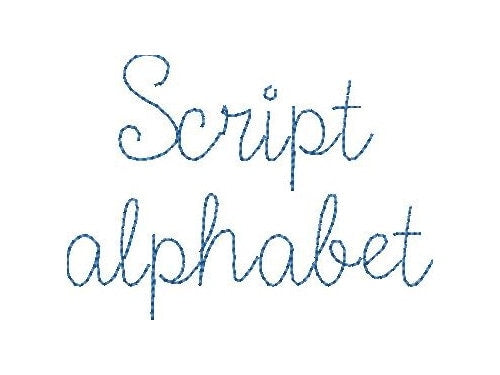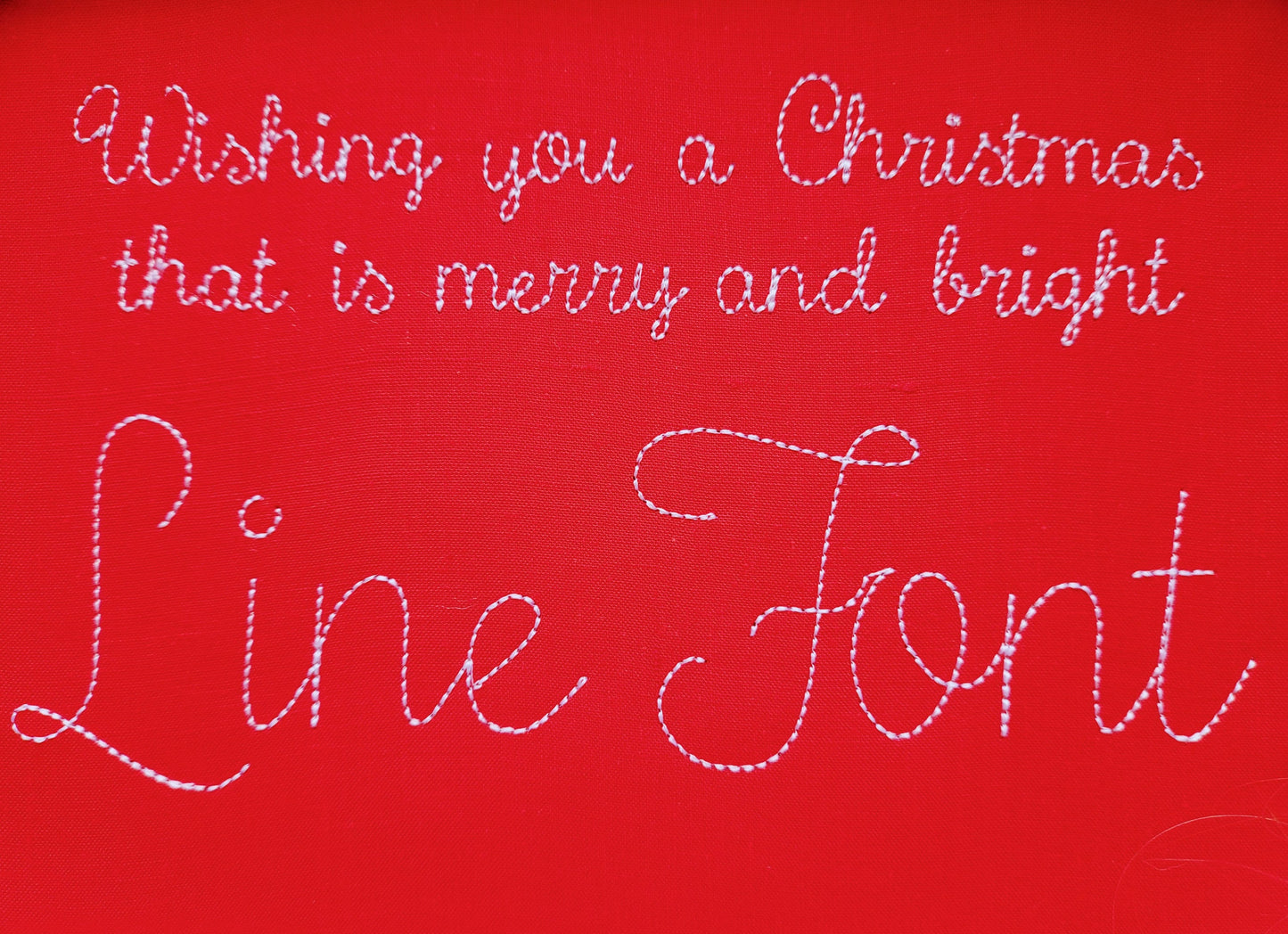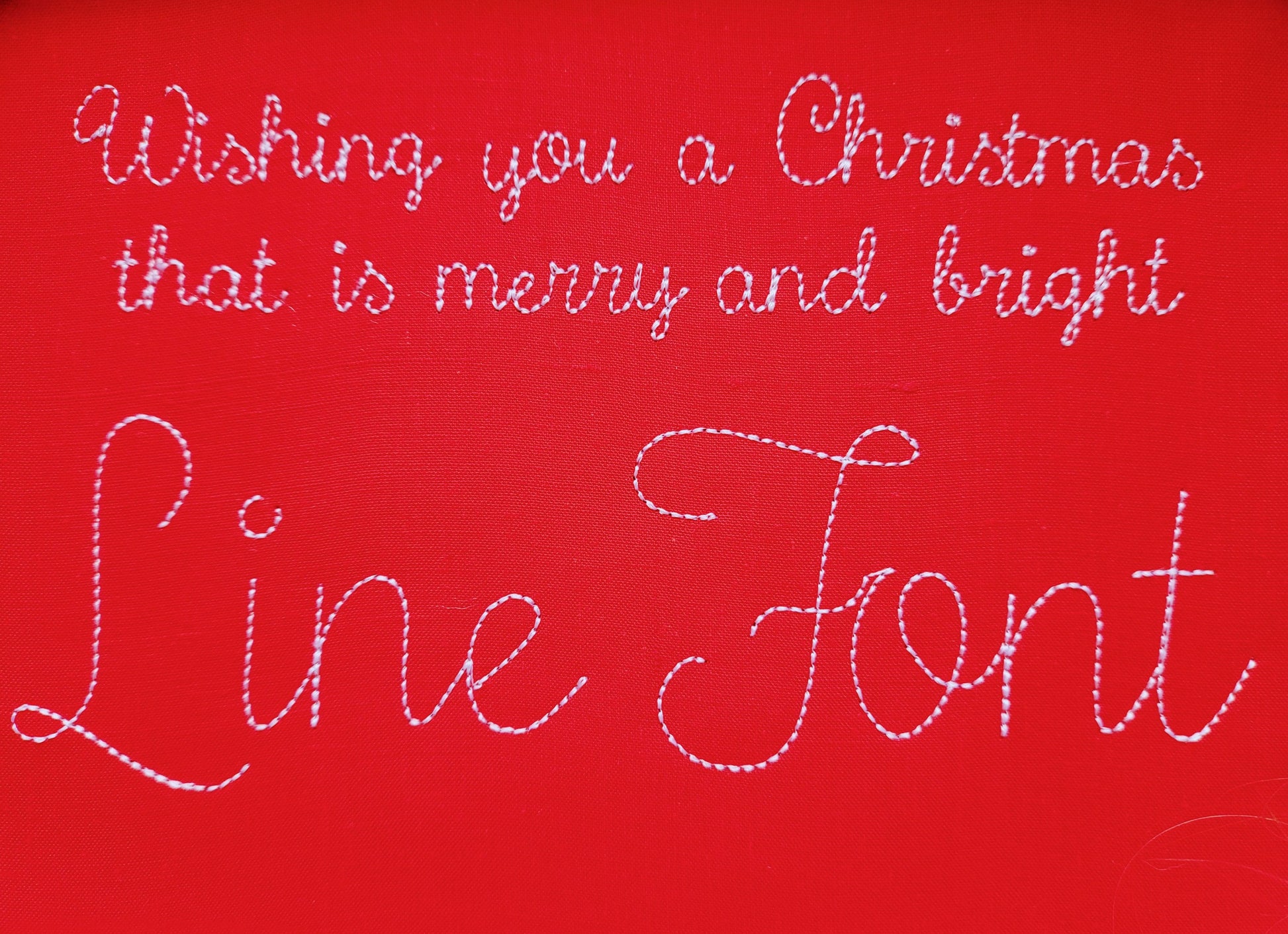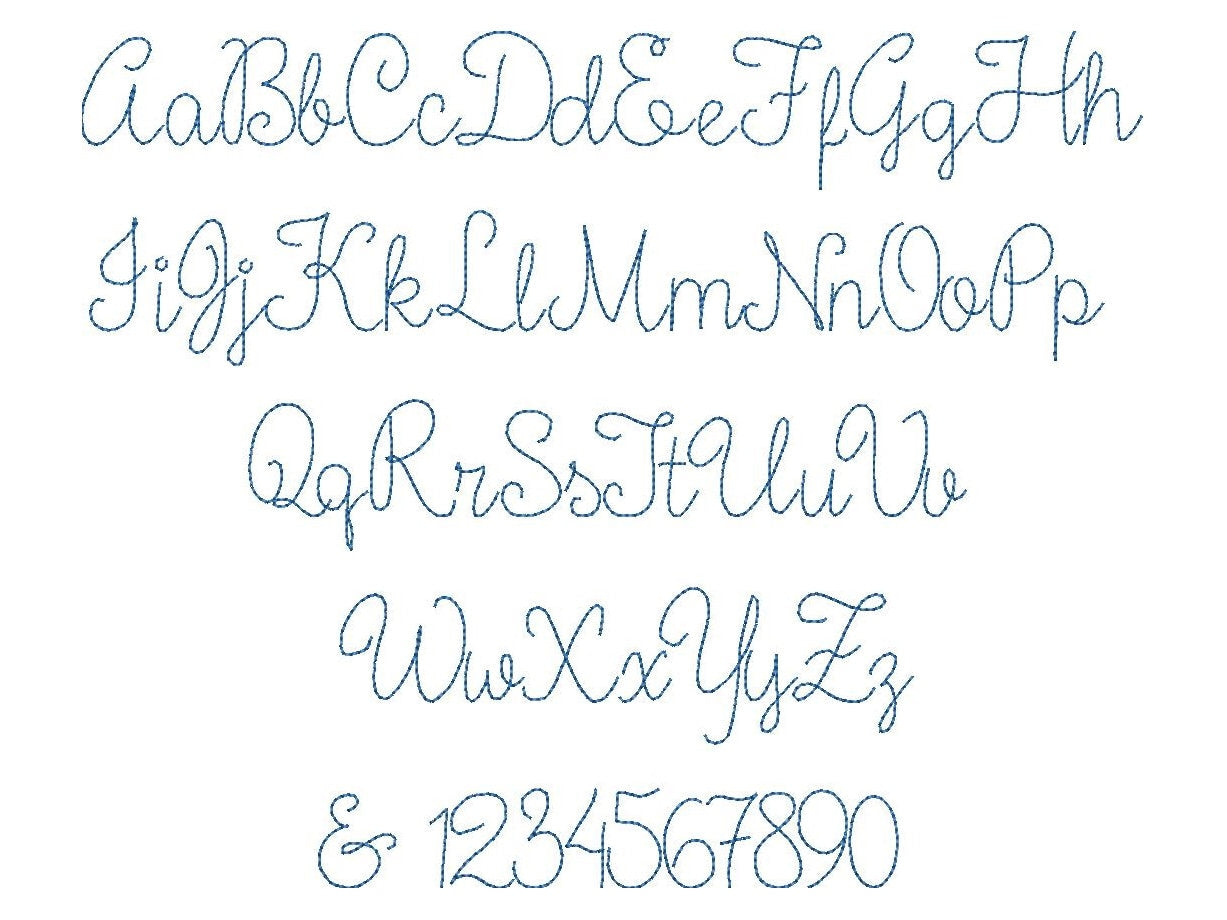
Great to be used for handkerchiefs!
Era justo lo que buscaba para un proyecto pequeño, que no tenga demasiadas puntadas. Los tamaños son perfectos. Lo único que echo en falta son signos de puntuación pero al ser un proyecto pequeño y una puntada que simula la manual, he bordado a mano los signos de puntuación y tildes.
yet again another great design
This font was so much fun!!
Stitched out wonderfully for a small project.
Mir gefällt die Schrift sehr. Ich habe sie für einen Adventskalender verwendet.
Stitched out perfectly the first try! I've bought tons of fonts, looking for the perfect quilt label font, and this is one of the best for the job.
Very good format. Stitched great.
Font stitched out beautifully! Highly recommend
There are too many stops on one letter, not a continuous stitching of a letter
great font works well for me thanks.
Just what I needed for my quilt label'
Just what I was looking for
Super süße Schrift, einfach perfekt.
I use on card stock for a greeting card. Worked perfectly
Font stitched out perfect! Looks great
Just what I needed love it,
Adorable font and it stitched perfectly
Stitches out great for my projects!
font was perfect for what I needed for baby bonnet, and when I asked for punctuation, so I could include dates, the seller was FANTASTIC with creating and sending them to me. Was such a nice exchange, would and WILL buy from her again
Schöne kleine Schrift die sich gut sticken lässt
Perfect! Sews out great! Love it!
Great embroidery if you're looking for a simple font. Fantastic!
Police très sympa. C’est Parfait
The font stitches out beautifully! It looks like hand-stitched lettering. Lovely!!
This was exactly what I wanted!
Exactly what I was looking for!
This font was exactly what I was looking for, it worked perfectly for my project!
Beautiful font. Stitched out perfectly.
Sehr schön gestickt. Bin begeistert
Pretty font! Stitches out great!
Stitched out perfect and love the font!
alles in Ordnung, Datei wie erwartet und angegeben. Lässt sich gut sticken. Gerne wieder.